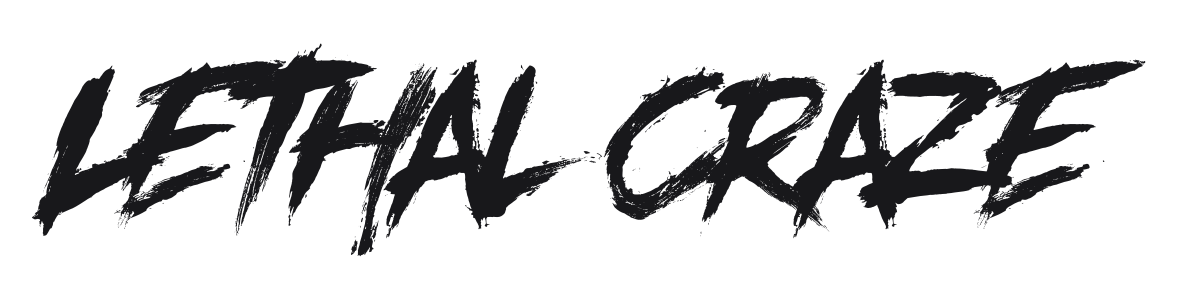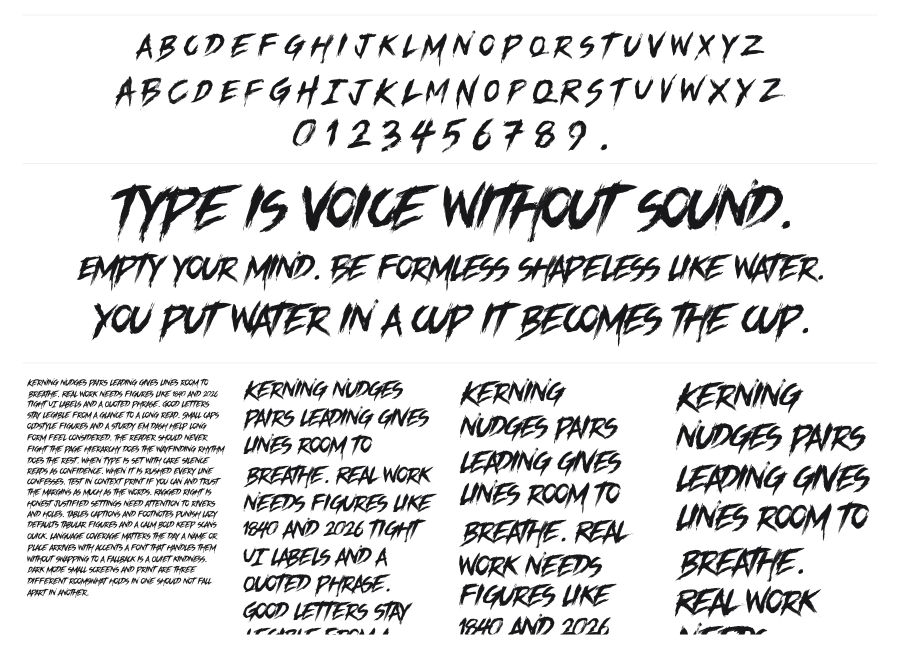
Lethal Craze
Lethal Craze is a semi-dry brush font built from real flat-brush strokes inked on fabric, giving each character a genuinely unpredictable, splintered texture. The strong forward slant and heavy bristle drag channel the hand-painted title cards of 1970s horror and exploitation cinema. It carries that same aggressive, kinetic energy into poster work, album art, and anything that needs to feel dangerous.